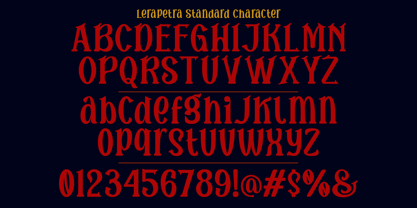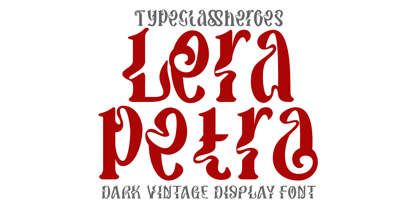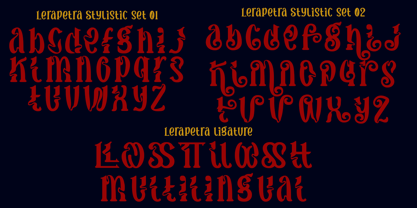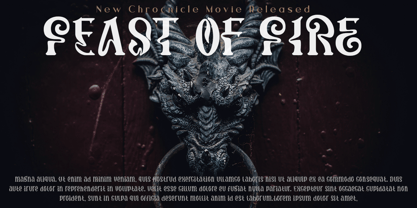
Lerapetra
by TypeClassHeroes
The Lerapetra Font Family was designed by Suandana ipandemade and published by TypeClassHeroes. Lerapetra contains 2 styles and family package options. More about this family
Makes this font multi purpose font for a wide range of applications. The design looks very unique and eye catching if it's combined properly stylish letters that seem to wave and twist harmoniously together. This font is ideal for logos, headlines, and other projects
Designers: Suandana ipandemade
Foundry: TypeClassHeroes